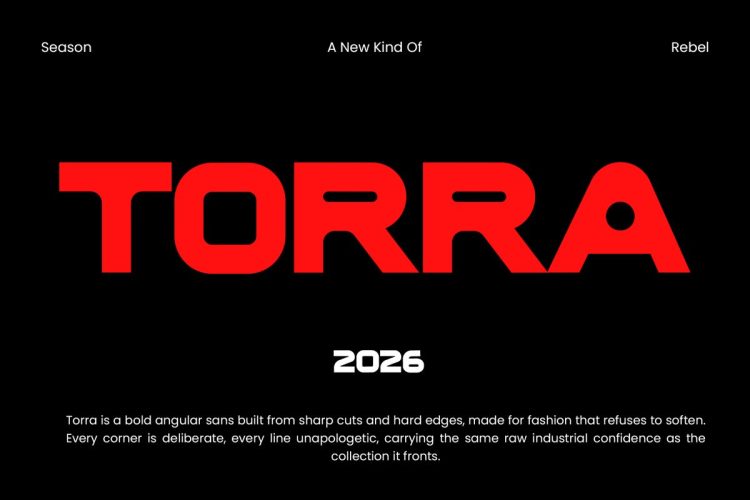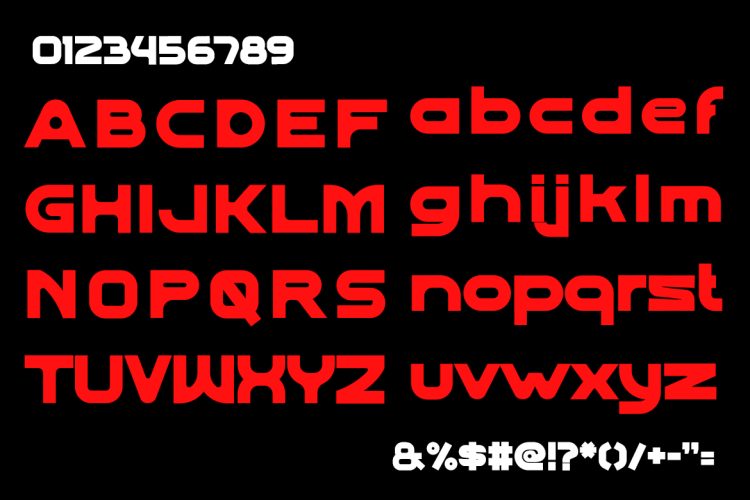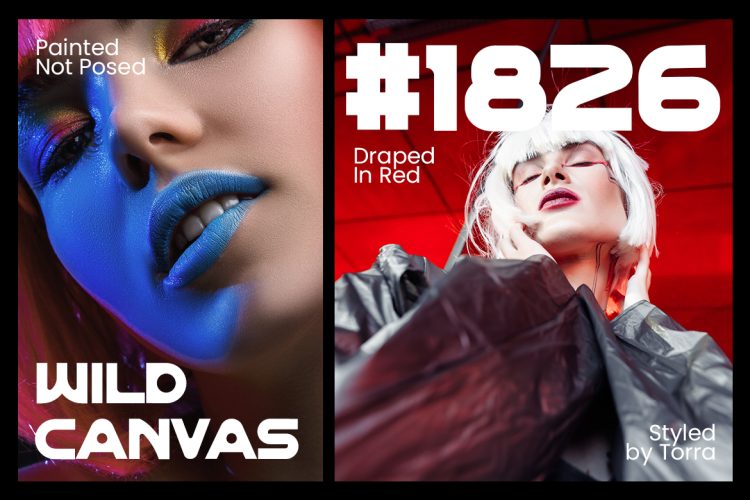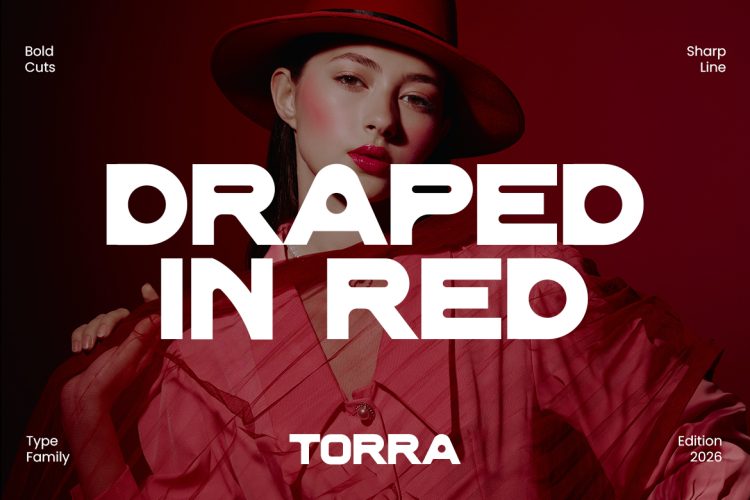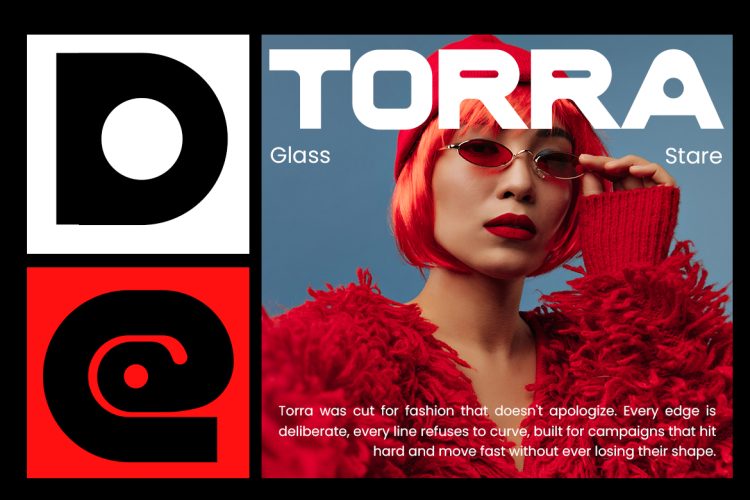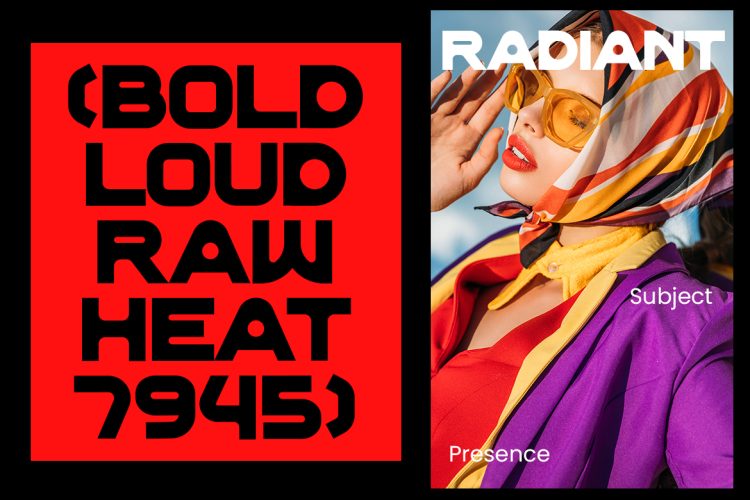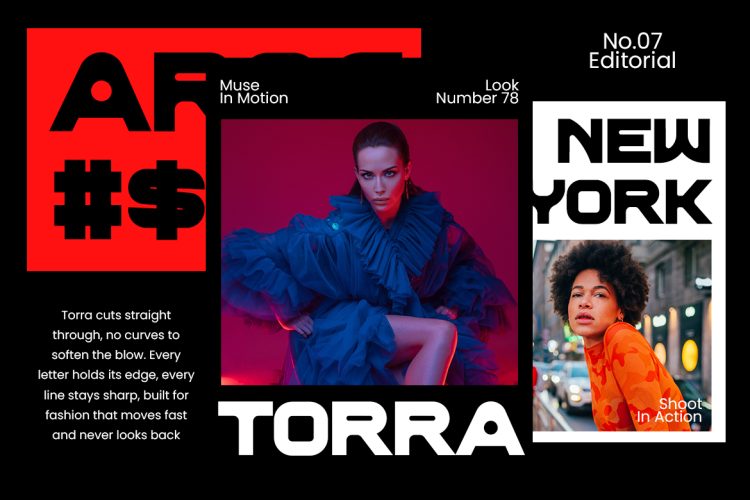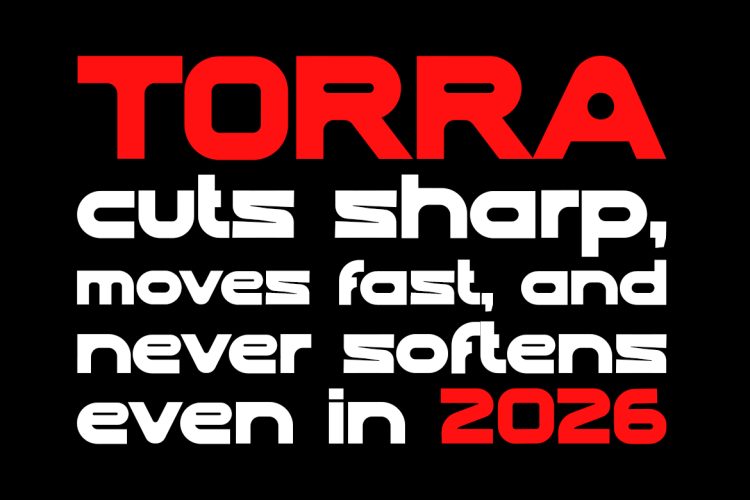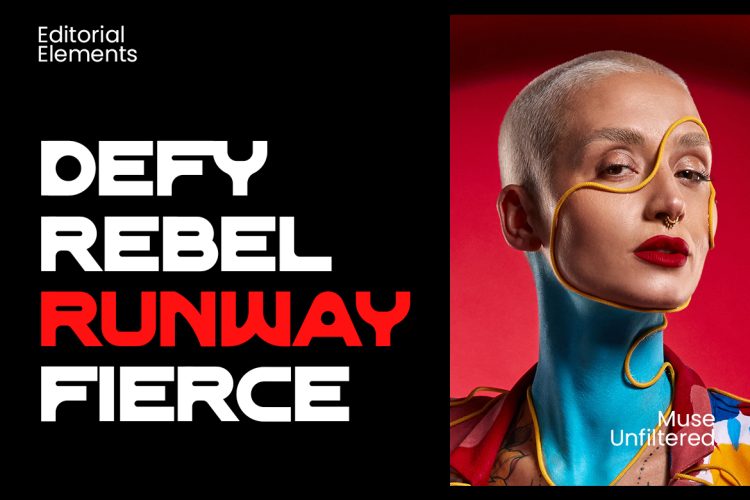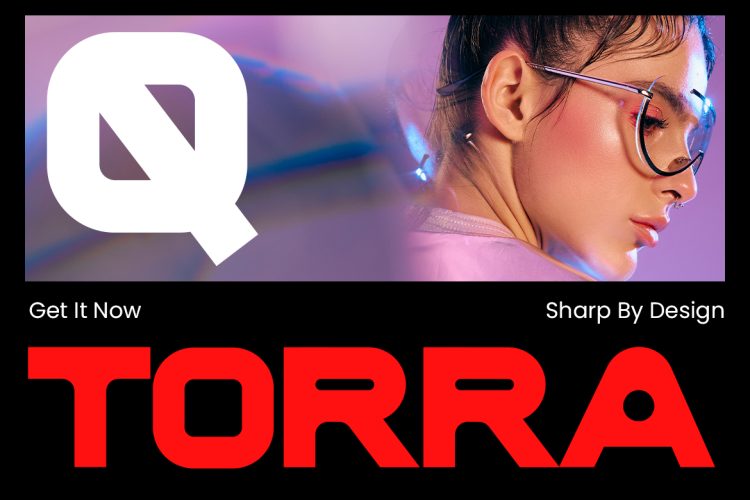
Torra โ Bold Digital Display Font
Torra is built for designs that need confidence, attitude, and a distinctly modern edge. For example, it works beautifully for magazine covers, fashion campaigns, album artwork, posters, social media graphics, branding, event promotions, sports visuals, and digital advertising. Furthermore, its bold structure pairs especially well with photography, gradients, high-contrast layouts, and experimental compositions. Because of this, designers can create visuals that feel sharp, youthful, and highly memorable. Likewise, Torra works particularly well for projects inspired by street culture, futuristic aesthetics, and digital media.
Instagram Font Torra Perfect For
Especially, Torra suits graphic designers, creative studios, fashion brands, musicians, content creators, media agencies, gaming projects, event organizers, and modern lifestyle brands. In addition, its distinctive personality makes it a strong choice when ordinary display fonts simply feel too predictable.
Make Your Design Hit Harder
If you want typography that looks bold, modern, and impossible to overlook, Torra is ready to bring the impact. So, add Instagram Font Torra to your font collection and give your next project a sharper visual voice.